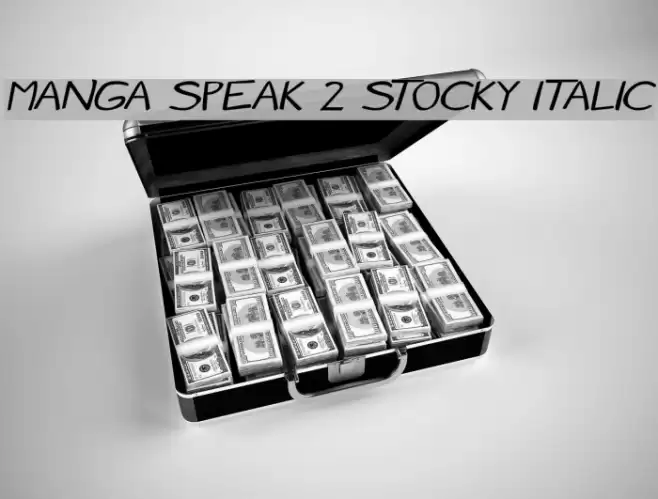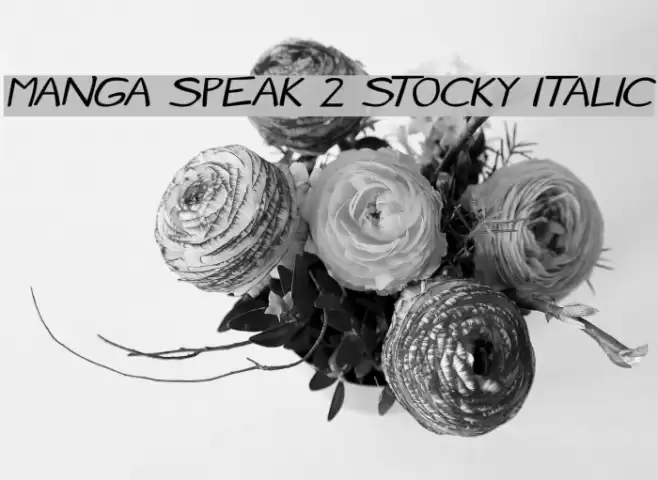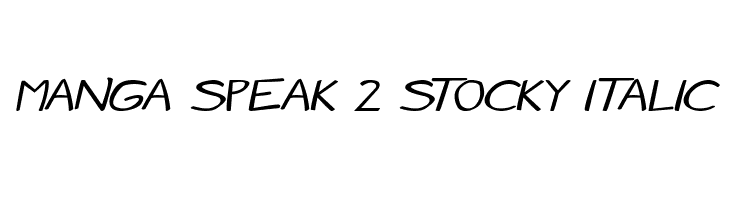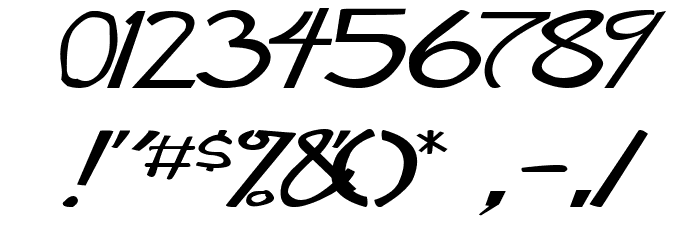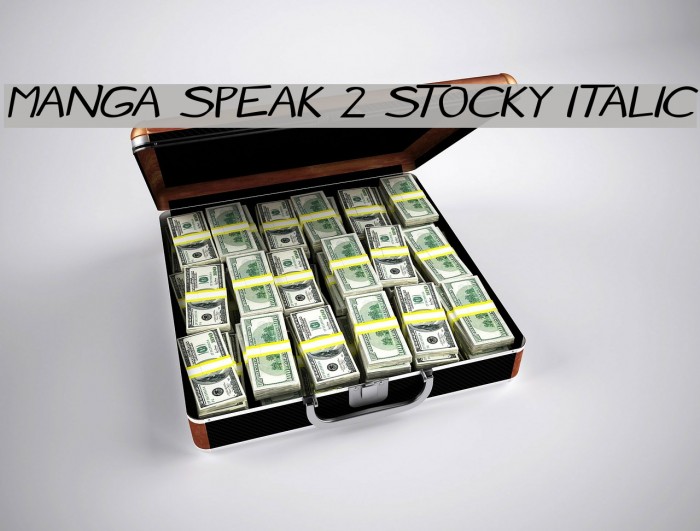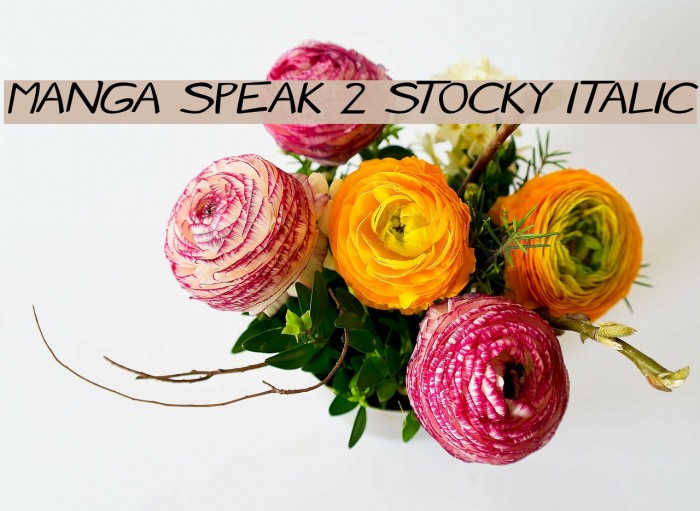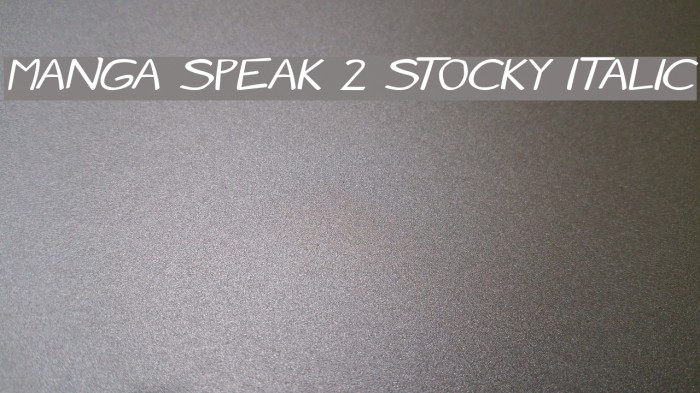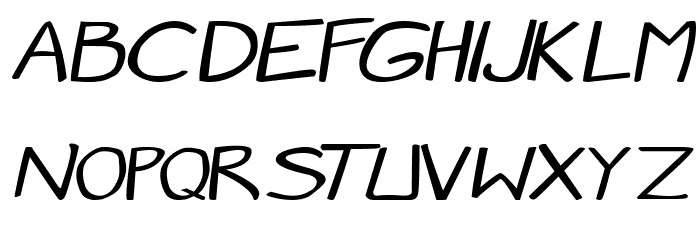
Manga speak 2 stocky Italic Font
Manga speak 2 stocky Italic Description
This font features a playful and dynamic style with a handwritten, italicized appearance. The letters are slightly slanted, giving a sense of motion and energy. The strokes are smooth and consistent, with a moderate thickness that maintains readability while adding a touch of personality. The characters are well-spaced, ensuring clarity and legibility. The numbers and special characters follow the same stylistic cues, making them cohesive with the alphabet. This font is ideal for projects that require a casual yet expressive look, such as comic books, informal branding, or creative posters.
A playful, italicized handwritten font with smooth, consistent strokes from Uncategorized fonts.
- Proposed Projects: Comic books, informal branding, creative posters, children's books.
- Overall Style: Playful, Dynamic
- Use Case: Headlines, Logos, Informal Text